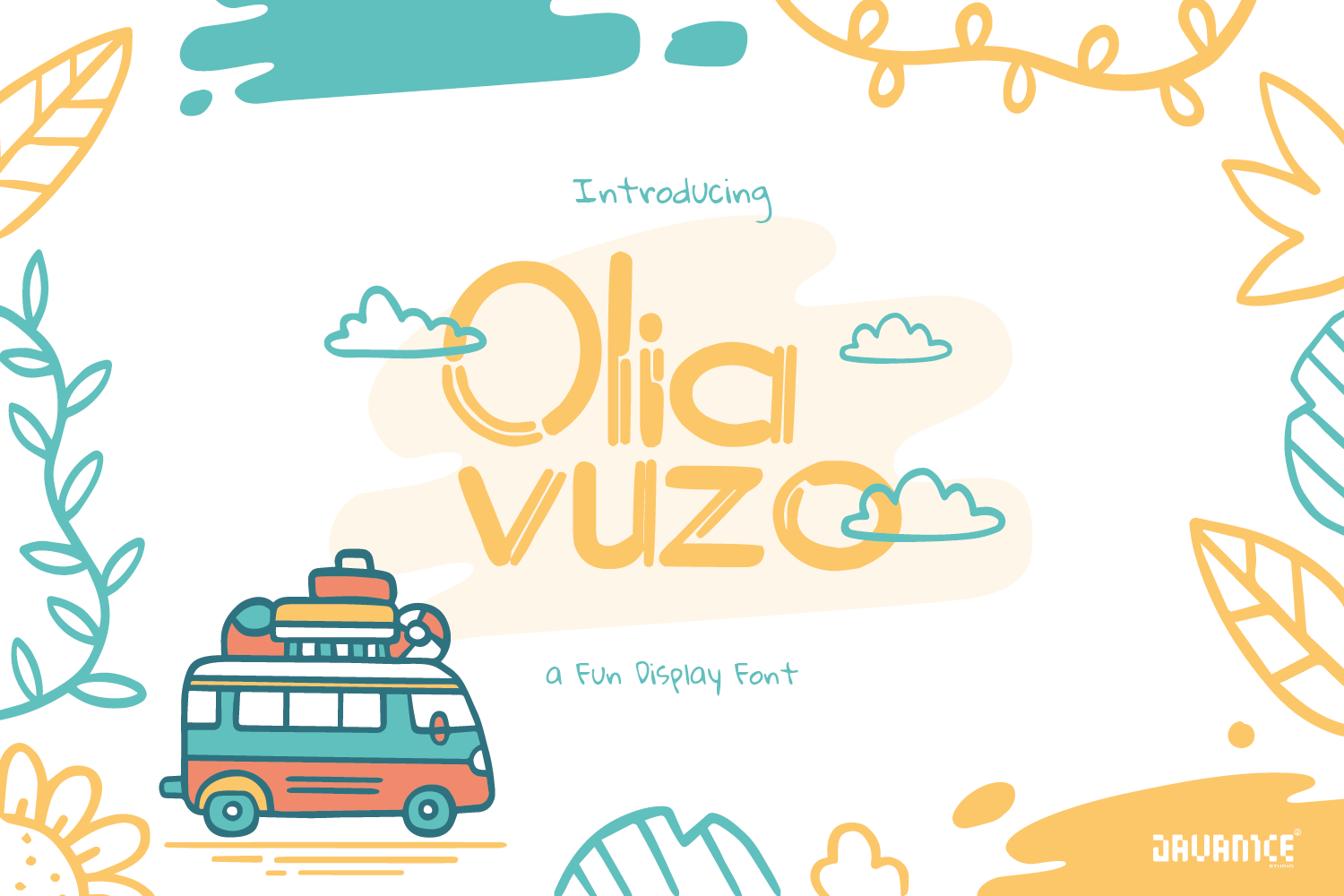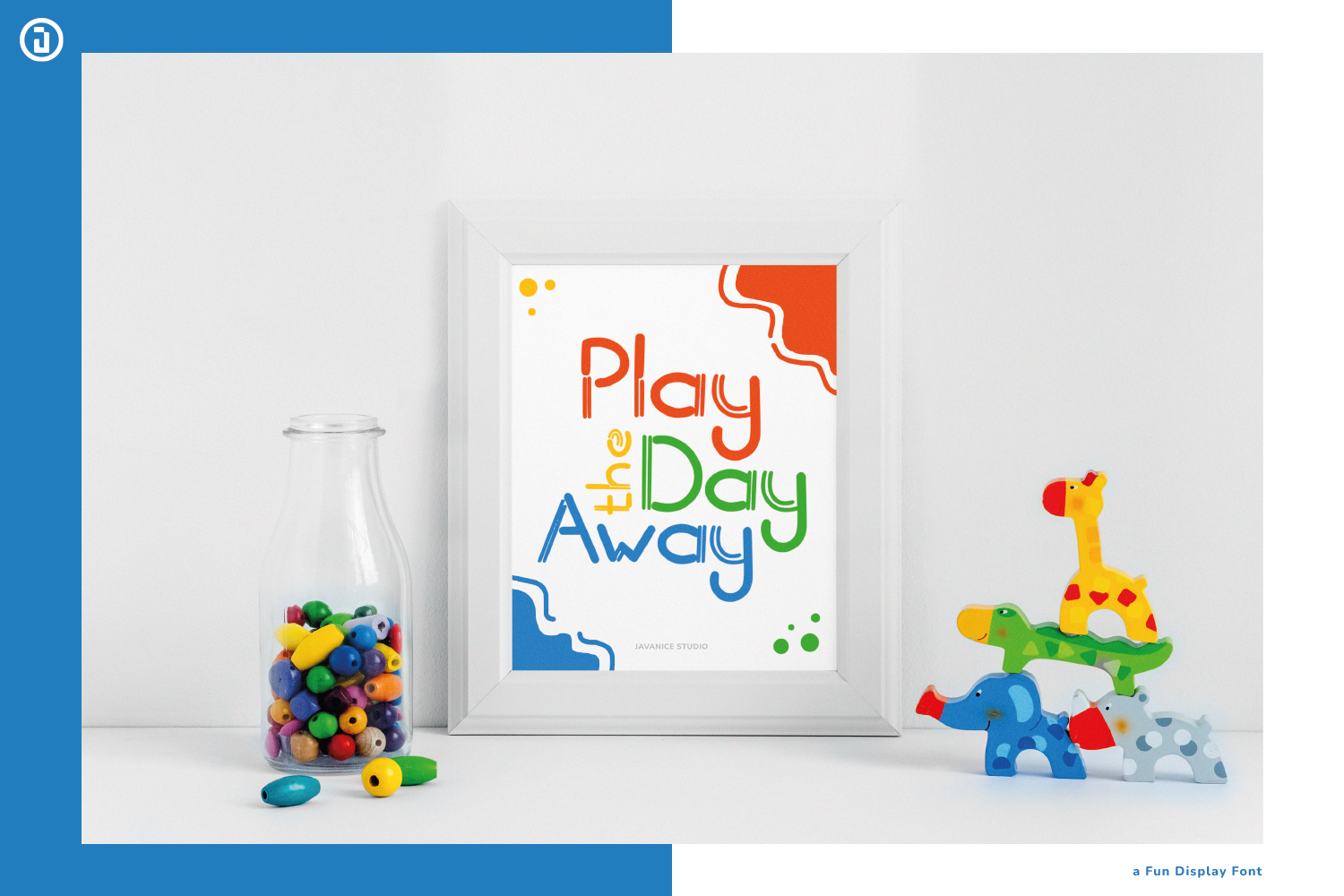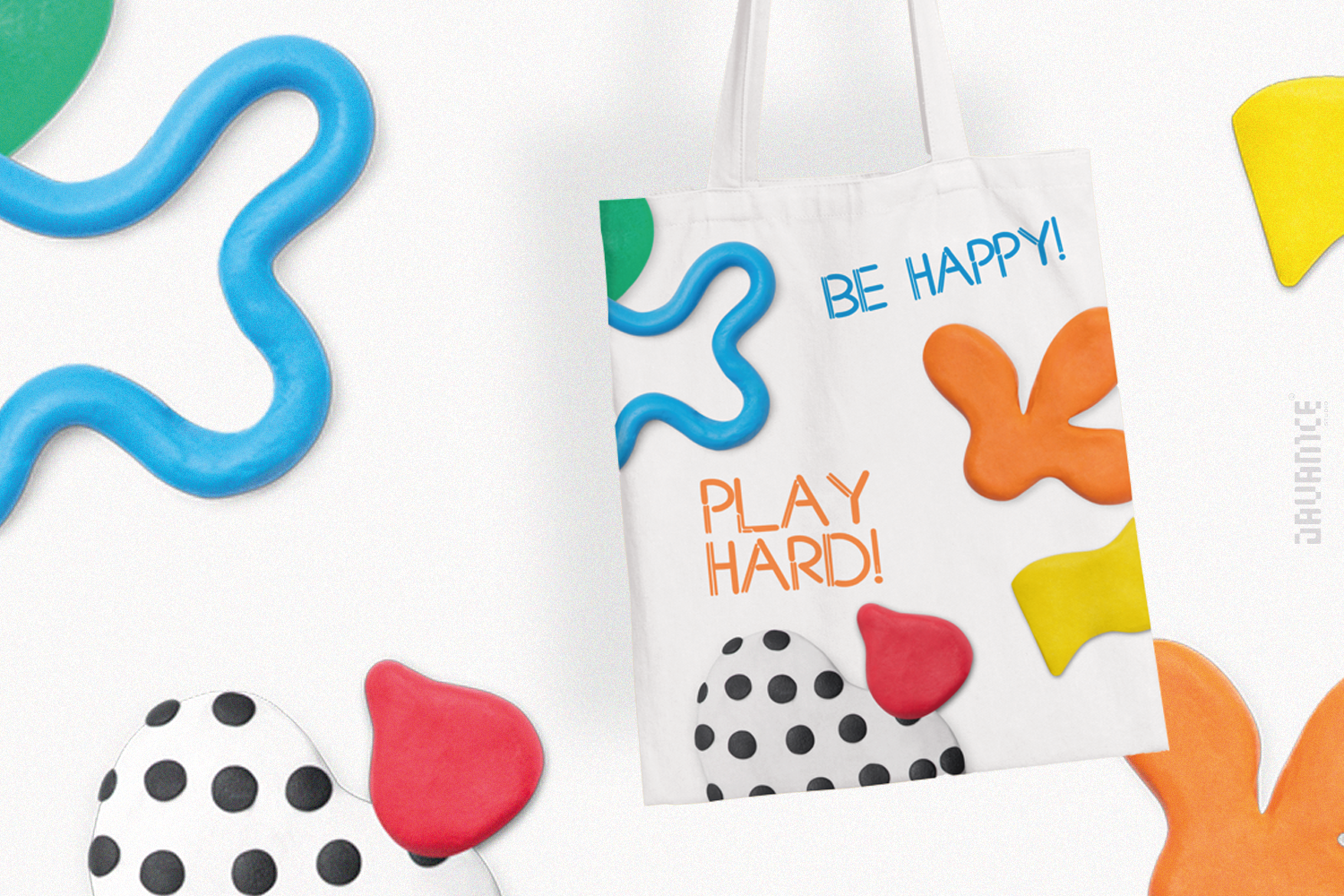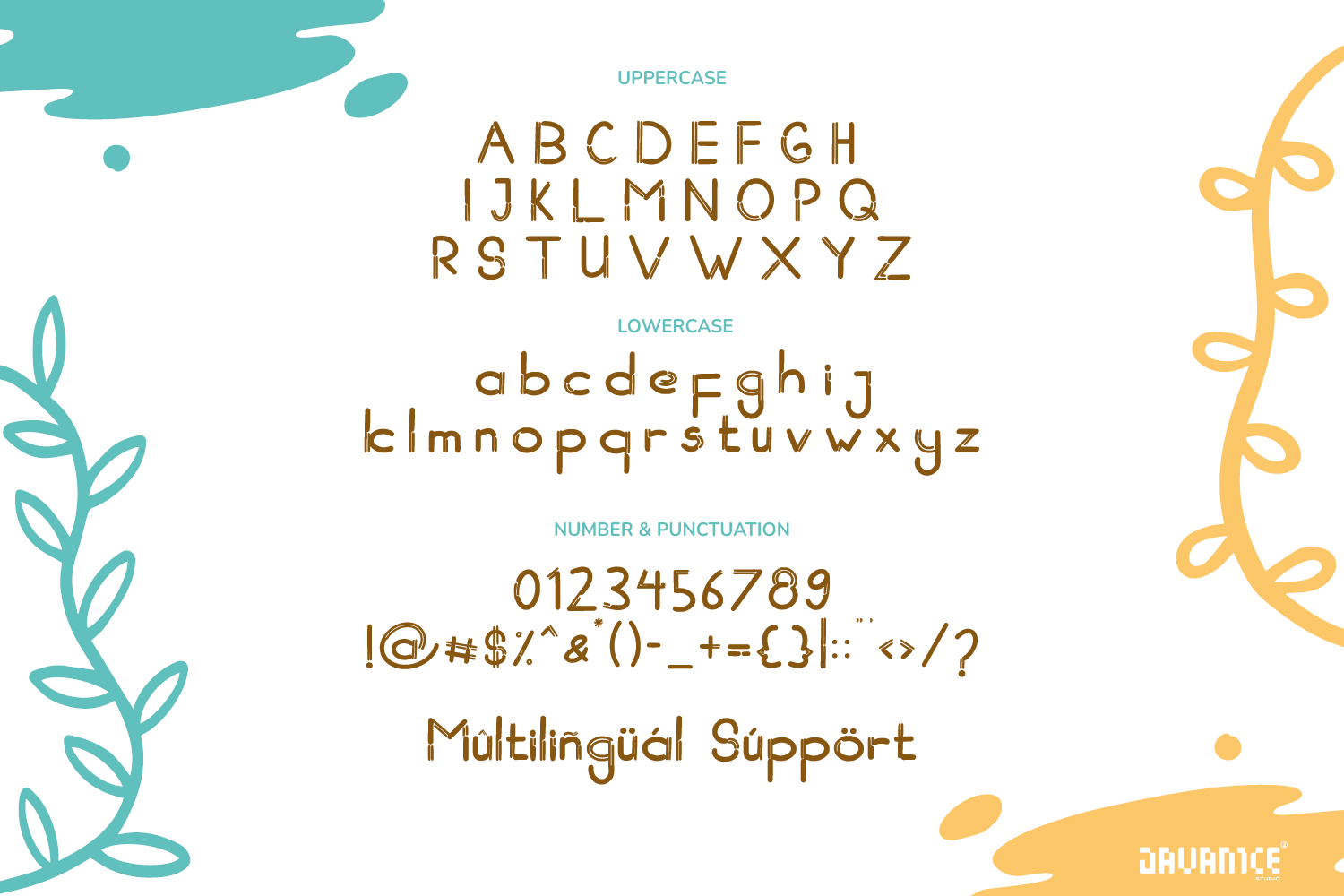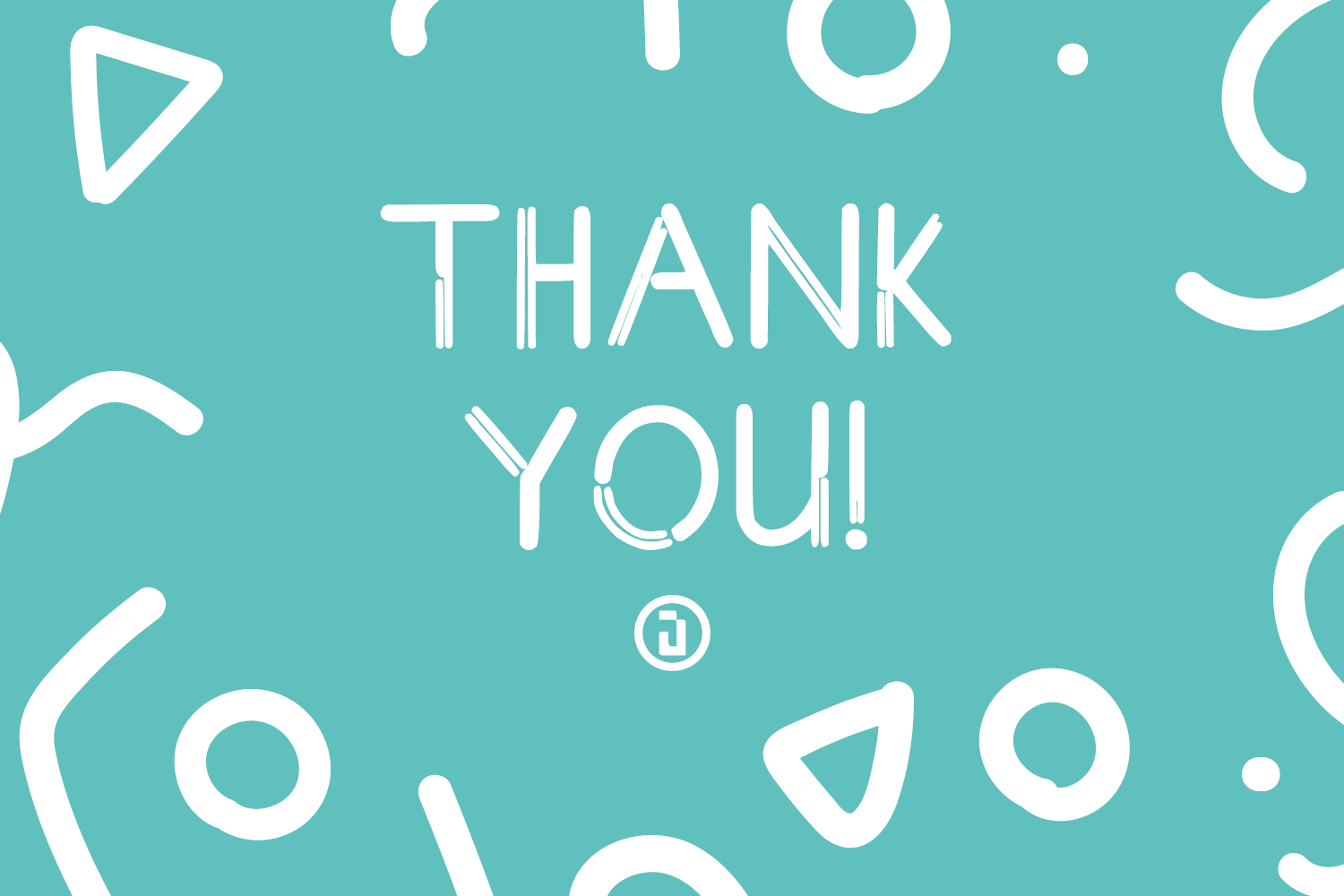
Olia Vuzo Font
Olia Vuzo Display Font
This is a Fun Display Font. Olia Vuzo is perfect for branding project, apparel, labels, magazines, books, greeting / wedding cards, packaging, fashion, make up, stationery, and any type of advertising purpose or just used to express words above the background.